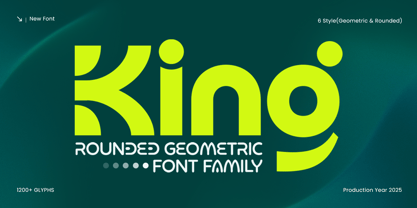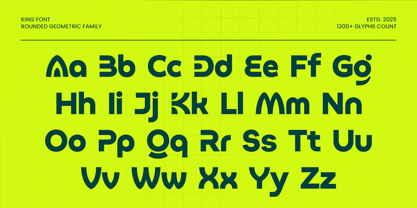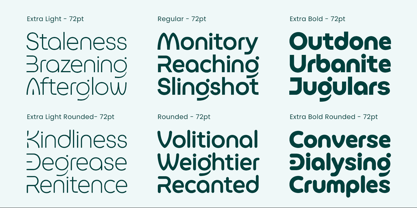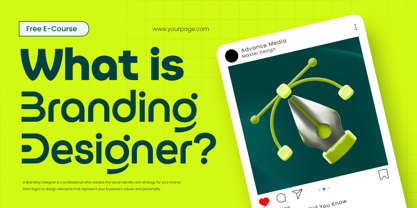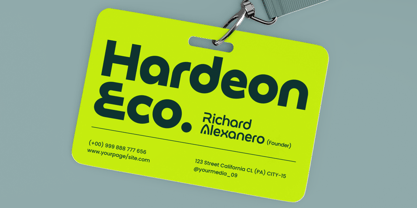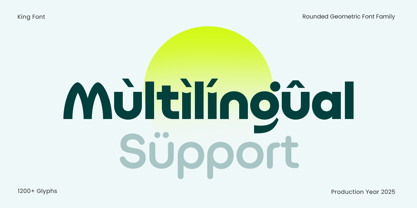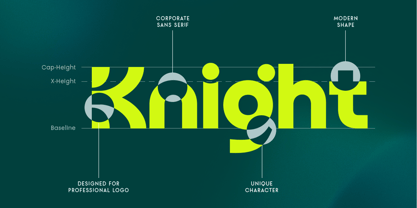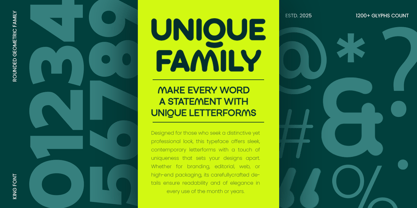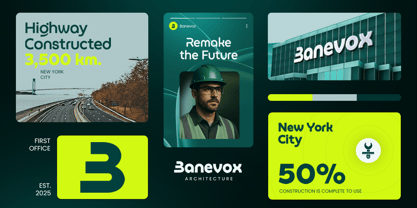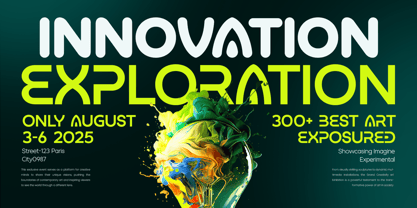
KING is a rounded geometric font family designed to deliver clarity, friendliness, and modern simplicity across all branding needs. With smooth curves, balanced proportions, and a harmonious geometric structure, this typeface brings an approachable and contemporary feel ideal for digital interfaces, product branding, packaging, and editorial layouts.
Featuring multiple weights, KING offers powerful flexibility—allowing you to create cohesive typographic systems that range from bold display headlines to refined, readable body text. Its rounded terminals give the font a warm and welcoming personality, making it suitable for technology companies, lifestyle brands, creative agencies, and minimal modern design projects.
Crafted with precision and versatility, KING provides consistent performance across print and digital media, making it a strong foundation for modern identity systems.
Features
Complete rounded geometric sans serif family with multiple weights
Perfect for branding, logos, packaging, editorial layouts, and UI/UX
Friendly, modern aesthetic with clean minimal letterforms
Suitable for tech, lifestyle, corporate, and creative industries
Uppercase, lowercase, numerals, and punctuation included
OpenType features for enhanced typographic control
Multilingual Support
Supports: Afrikaans, Albanian, Asu, Basque, Bemba, Bena, Breton, Chiga, Cornish, Dutch, English, Estonian, Filipino, Finnish, Friulian, Galician, German, Gusii, Indonesian, Irish, Italian, Kabuverdianu, Kalenjin, Kinyarwanda, Luo, Luxembourgish, Luyia, Machame, Makhuwa-Meetto, Makonde, Malagasy, Manx, Morisyen, North Ndebele, Nyankole, Oromo, Portuguese, Quechua, Romansh, Rombo, Rundi, Rwa, Samburu, Sango, Sangu, Scottish Gaelic, Sena, Shambala, Shona, Soga, Somali, Spanish, Swahili, Swedish, Swiss, and more.
Elevate your visual identity with KING – the ultimate rounded geometric font family for clean, modern, and friendly branding.